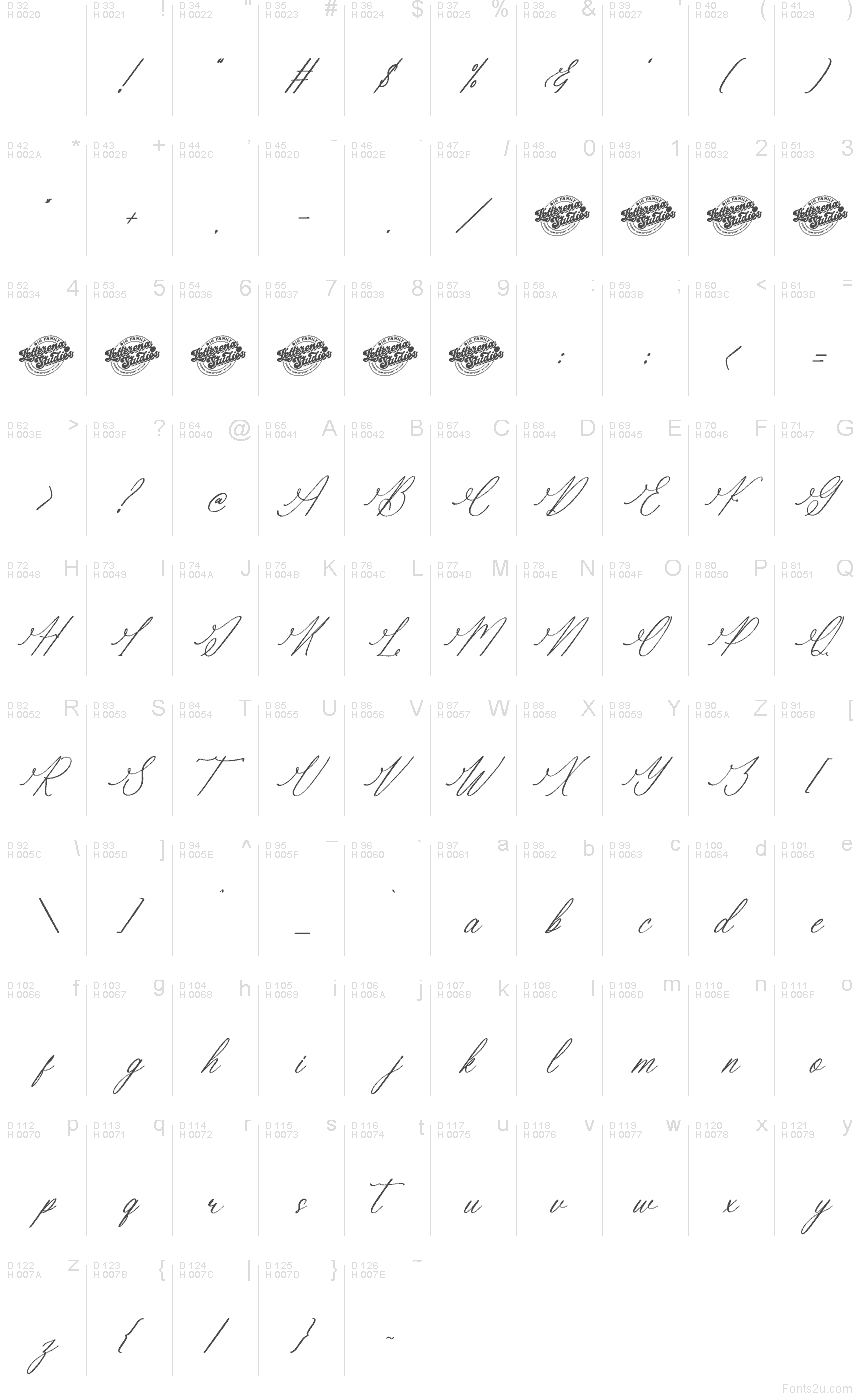
Berlanfi Sankisse DEMO VERSION Italic
Berlanfi Sankisse Italic font by Letterena Studios is a free calligraphy font that captures the feel of real, flowing pen work. Letters glide into each other with slim, silvery strokes and airy loops, giving every word a soft, handwritten shimmer. Part of the Berlanfi Sankisse family, it carries a refined, slightly nostalgic charm—like ink on fine stationery—without feeling stuffy or overdone.
Using Berlanfi Sankisse Italic, invitations and event branding instantly gain that “carefully written by hand” atmosphere. This free font shines on wedding suites, save-the-dates, personal logos, boutique packaging, quote prints, and social media graphics that need a romantic or intimate tone. Pair it with a clean sans serif for body text, and keep Berlanfi Sankisse large with generous spacing so its delicate curves stay crisp and readable.